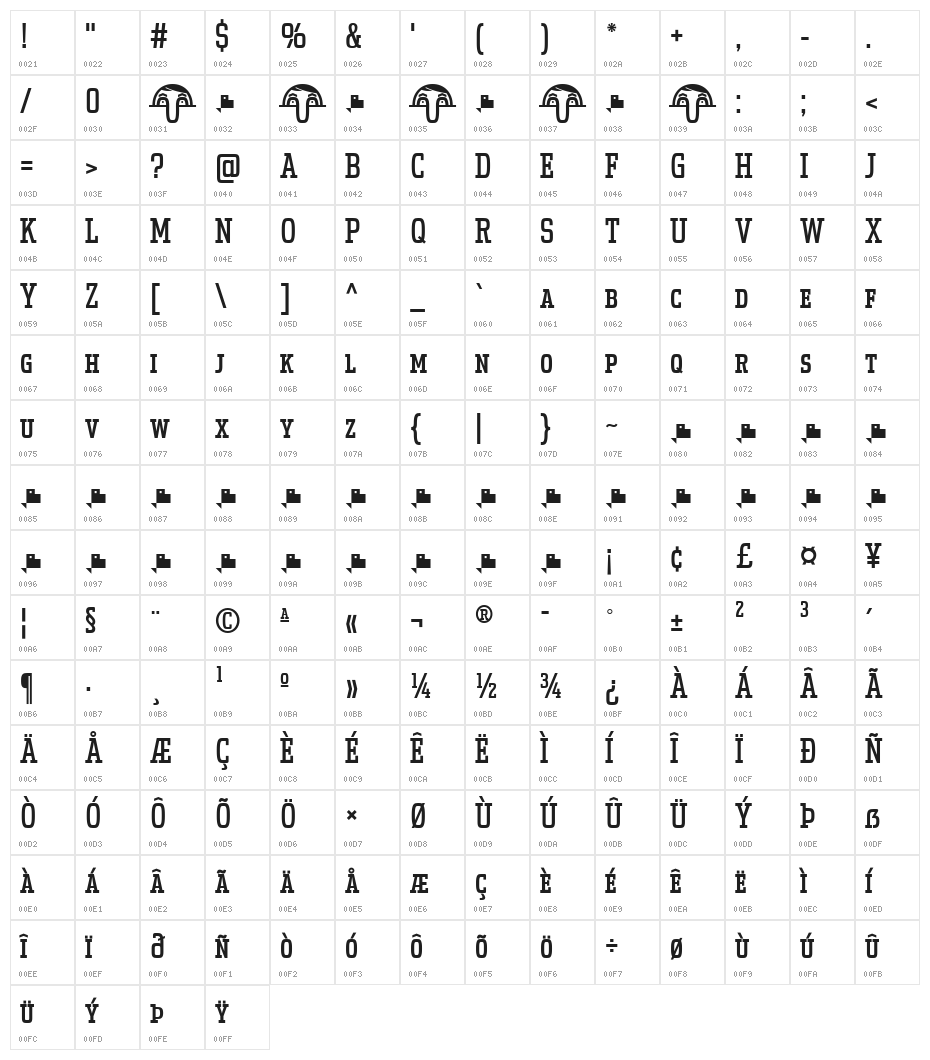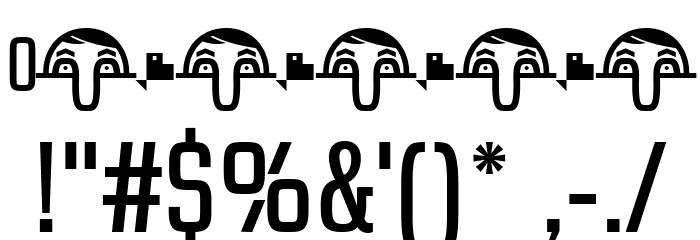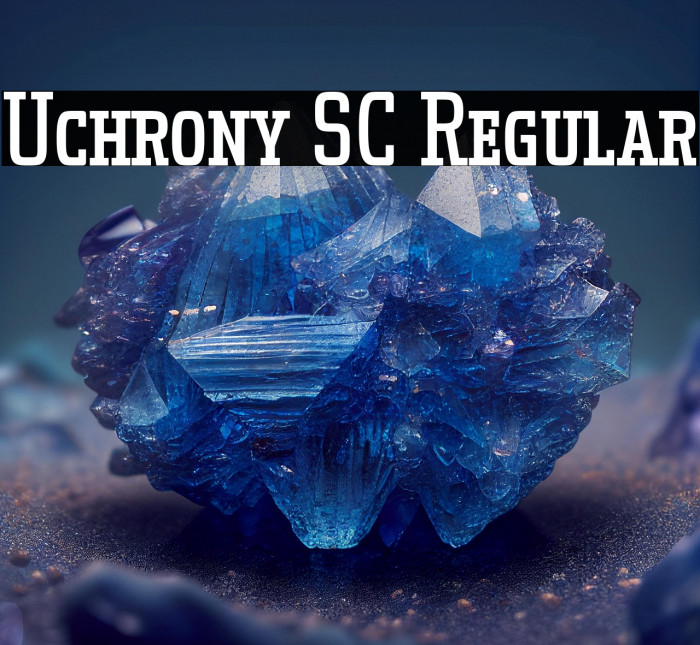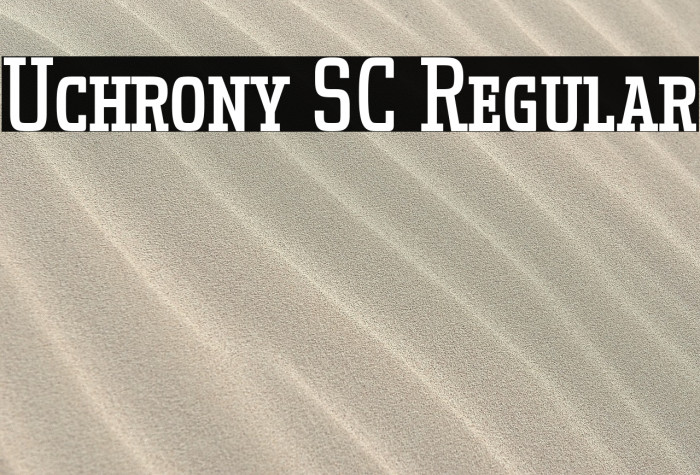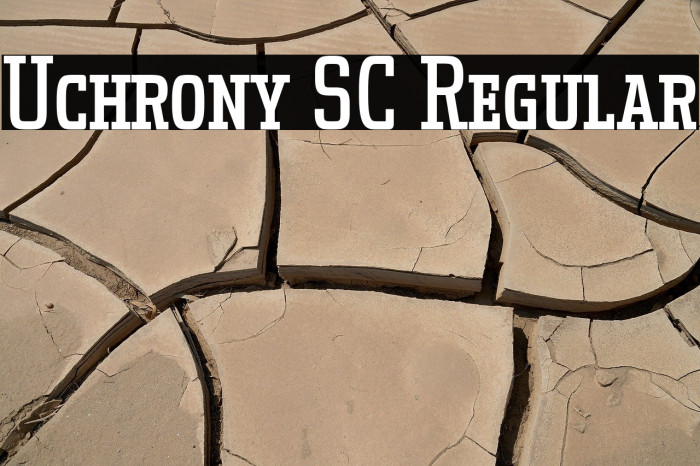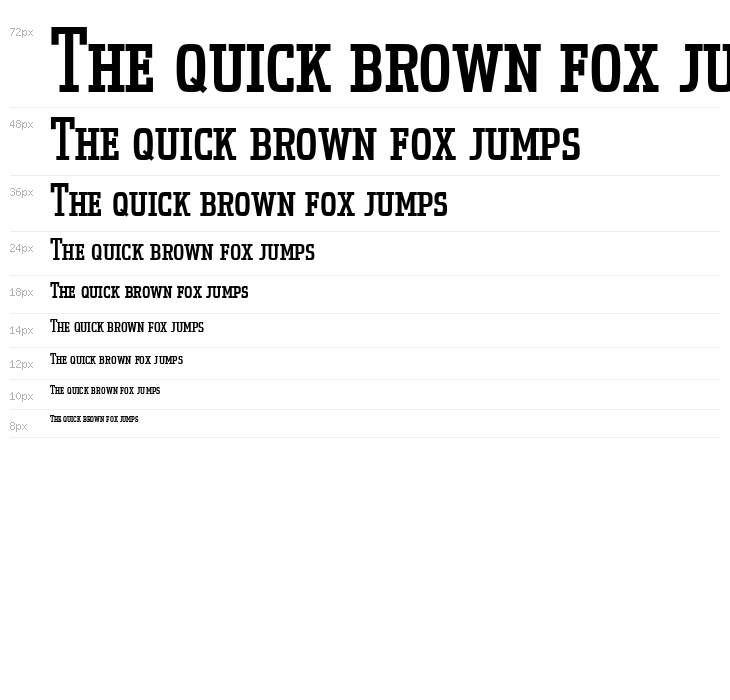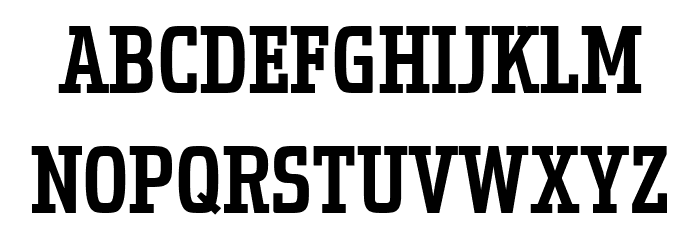
Uchrony SC Regular Font
Uchrony SC Regular Description
This font features a bold and striking design with a strong presence, characterized by its slab serif style. The uppercase letters are robust and commanding, with thick strokes and prominent serifs that give them a classic yet modern feel. The lowercase letters maintain the same boldness, ensuring consistency across the typeface. The numbers and special characters are equally bold, with a unique design that complements the overall aesthetic. The font's design is ideal for making a statement, with its high contrast and wide character spacing that enhance readability and impact.
| Proposed Projects | Ideal for branding, posters, headlines, and any project requiring a strong, impactful typeface. |